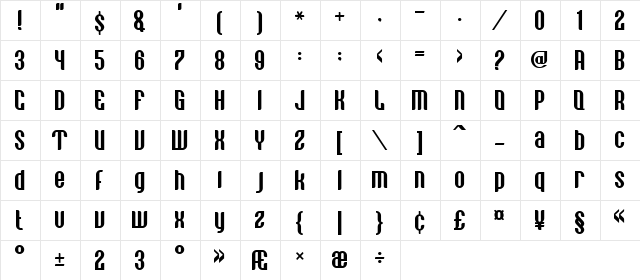
VE is a composed and adaptable typeface that performs quietly and consistently across a wide range of design contexts.
Who designed the VE vestagurly font?